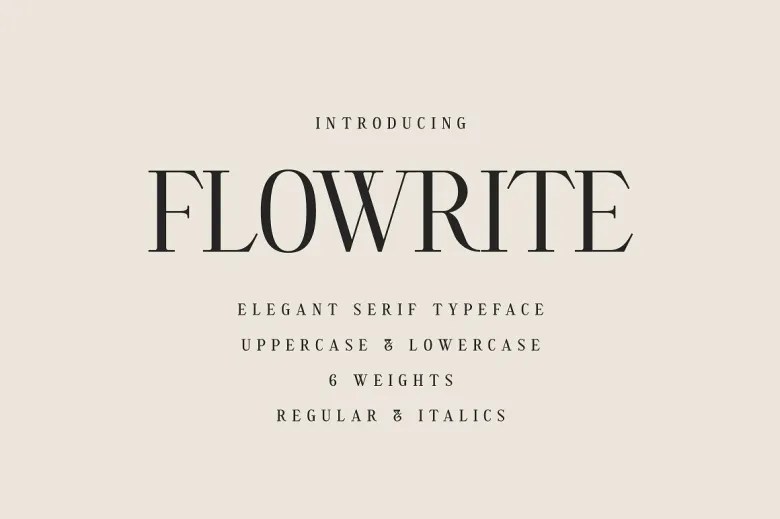
Flowrite Font
The Flowrite Serif Font strikes a perfect balance between timeless elegance and contemporary style, offering six weights in both italic and regular styles, complemented by a chic script with modern calligraphy. Designed to appeal to a broad audience, Flowrite supports 87 languages, making it an ideal choice for global communication in editorial, branding, and design projects.
Whether you’re working on sophisticated branding, editorial layouts, or stylish design projects, Flowrite provides the versatility and aesthetic appeal needed to make your work stand out on a global scale.